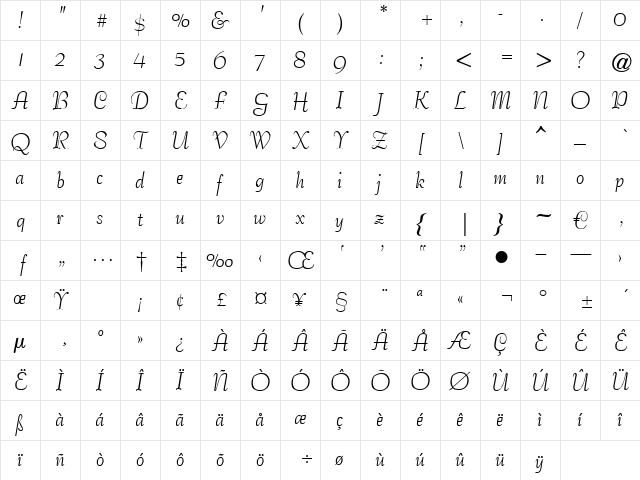
Felicitas Regular Font Preview
Felicitas Regular
Felicitas Regular Font Details
Design Context for Felicitas Typeface
Felicitas offers clean, dependable letterforms without strong stylistic allegiance, making it a practical choice for designers who need flexibility.